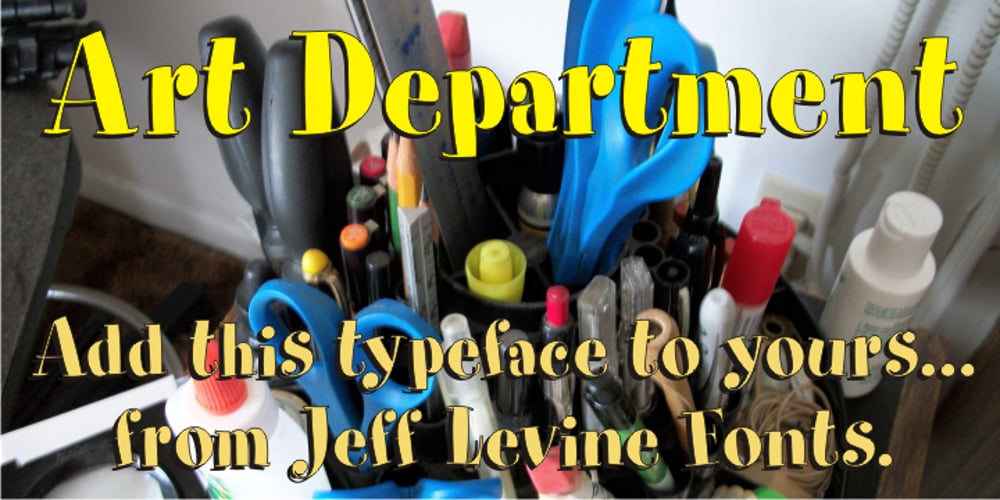
Art Department JNL Font Family was designed by Jeff Levine and published by Jeff Levine. Art Department JNL contains 1 styles and family package options. Art Department JNL is a fun, casual serif typeface which fits perfectly with any number of visual projects. This is one of the many hand-lettered alphabets found in various Speedball® lettering textbooks that has been re-drawn digitally by Jeff Levine.